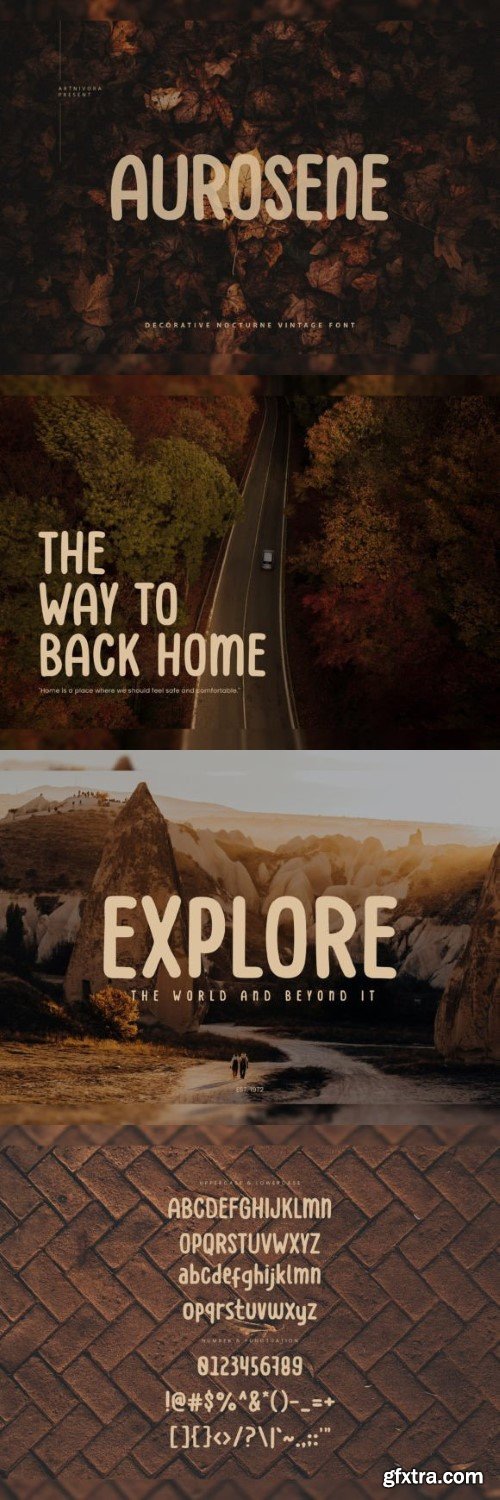
Aurosene is a childish, easy-to-read sans serif font that conveys impeccable friendliness. Whether you’re using it for crafts, digital design, presentations, or making greeting cards, this font has the potential to become your favorite go-to font, no matter the occasion!